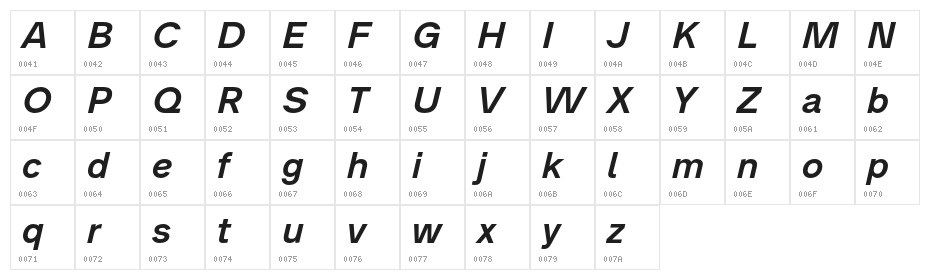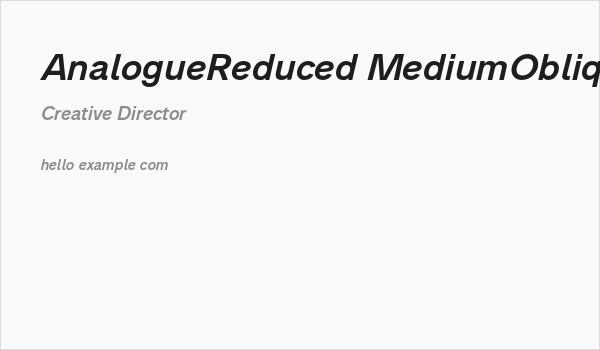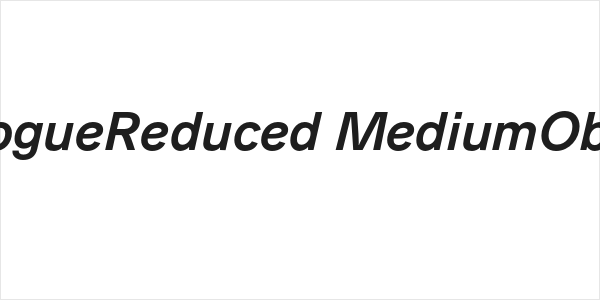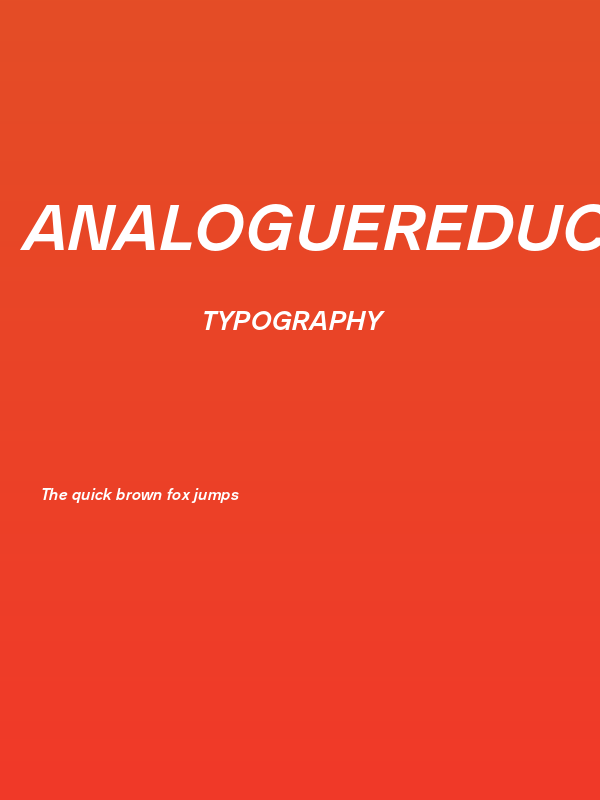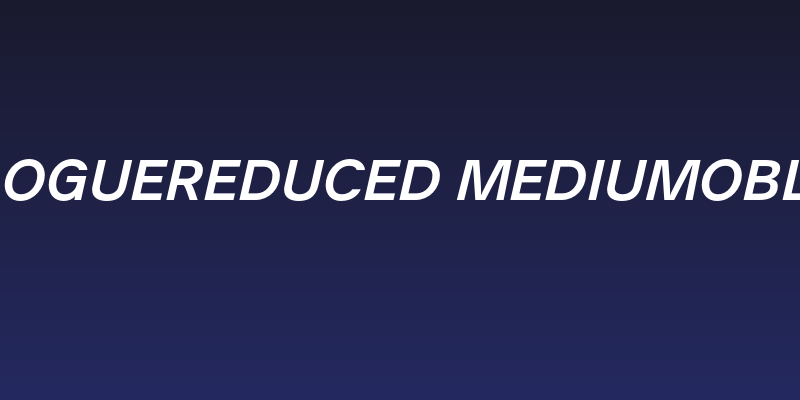
AnalogueReduced-MediumOblique Font
AnalogueReduced-MediumOblique Description
This font features a sleek, oblique style with a modern sans-serif design. The characters are slightly slanted, giving a dynamic and forward-moving appearance. The strokes are consistent in thickness, providing a uniform look across all characters. The uppercase and lowercase letters are well-proportioned, maintaining readability and clarity. The numerals and special characters are designed to match the overall aesthetic, ensuring a cohesive appearance in any text. This font is versatile, suitable for various applications where a contemporary and clean look is desired.
| Proposed Projects | Ideal for branding, advertising, and digital media projects requiring a modern and dynamic typeface. |